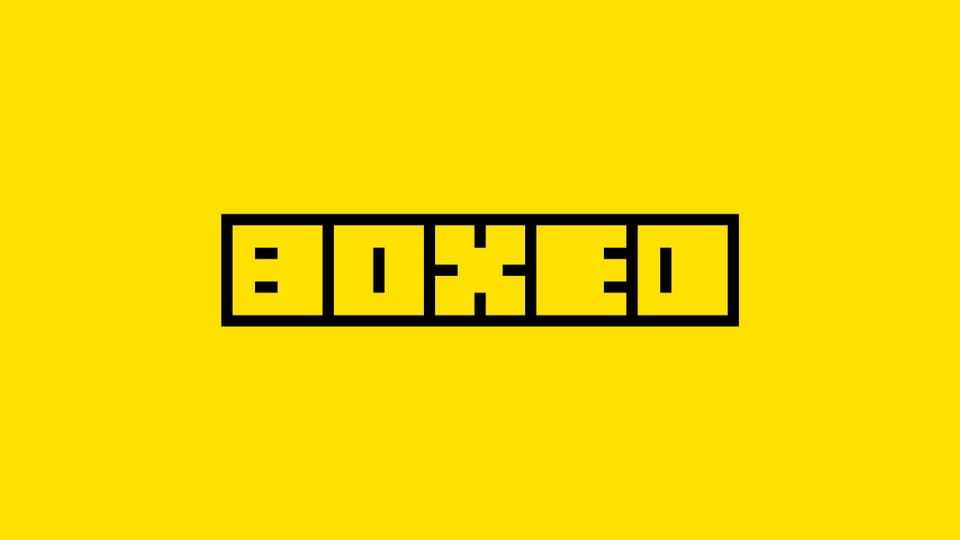
Download Boxed font, a display typeface meant to be used for large sizes or graphical type usage. With its blocky, modular style, Boxed thrives in large sizes — perfect for posters, branding, signage, and expressive graphic design.